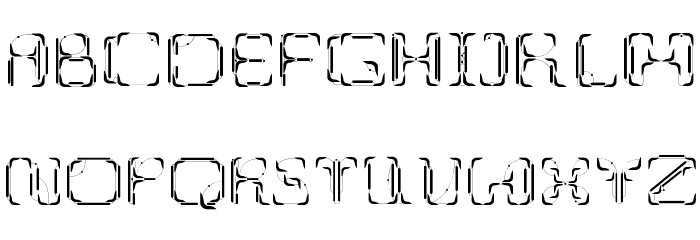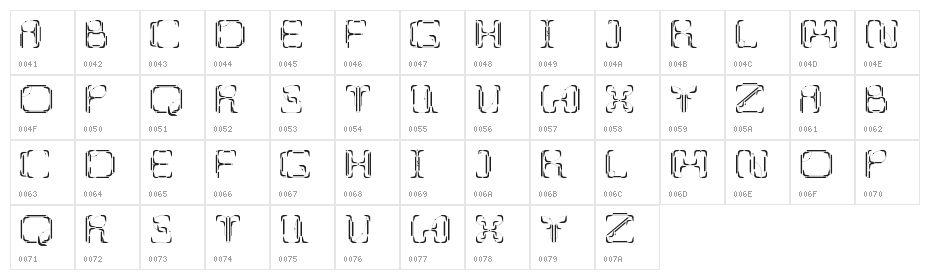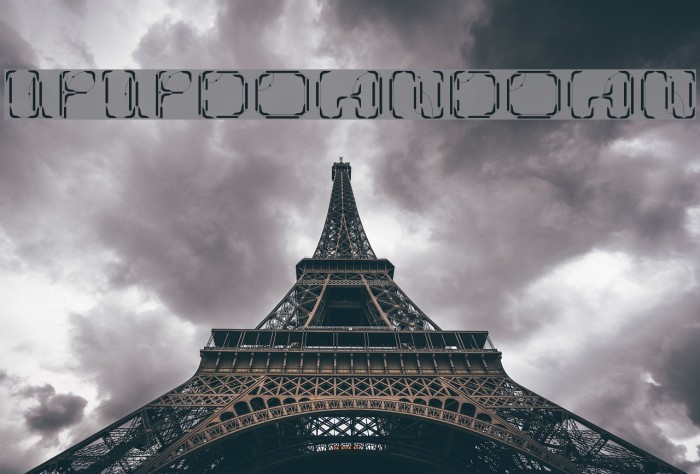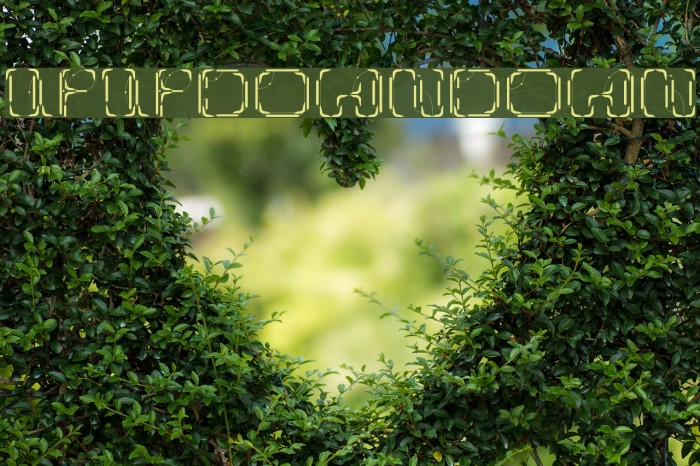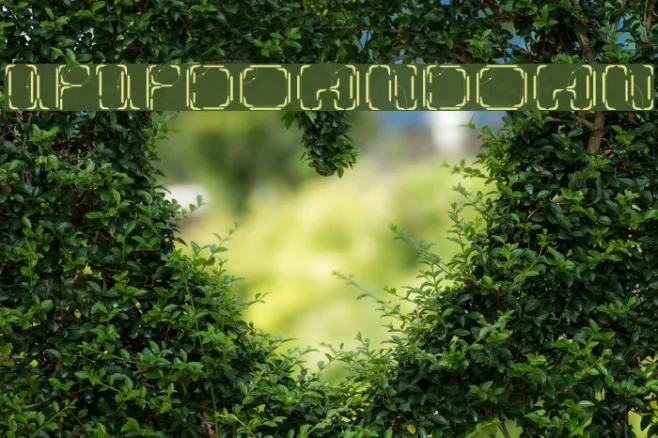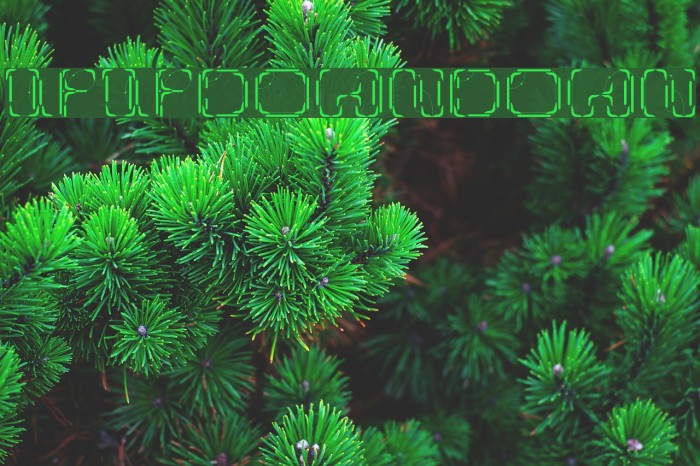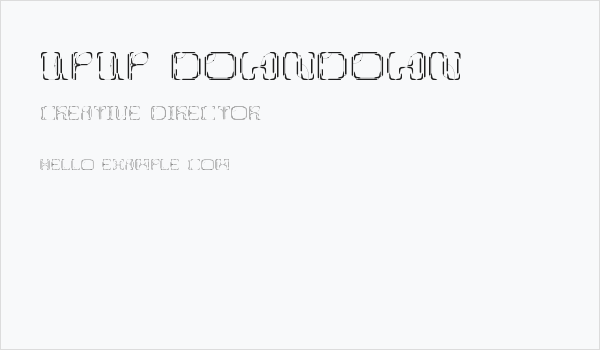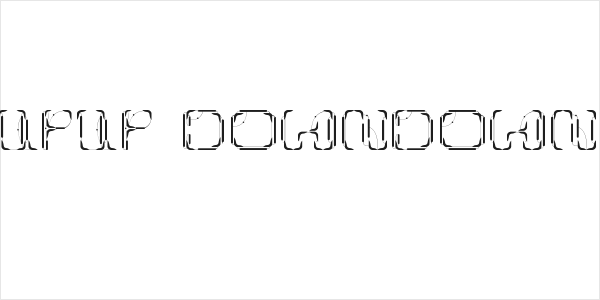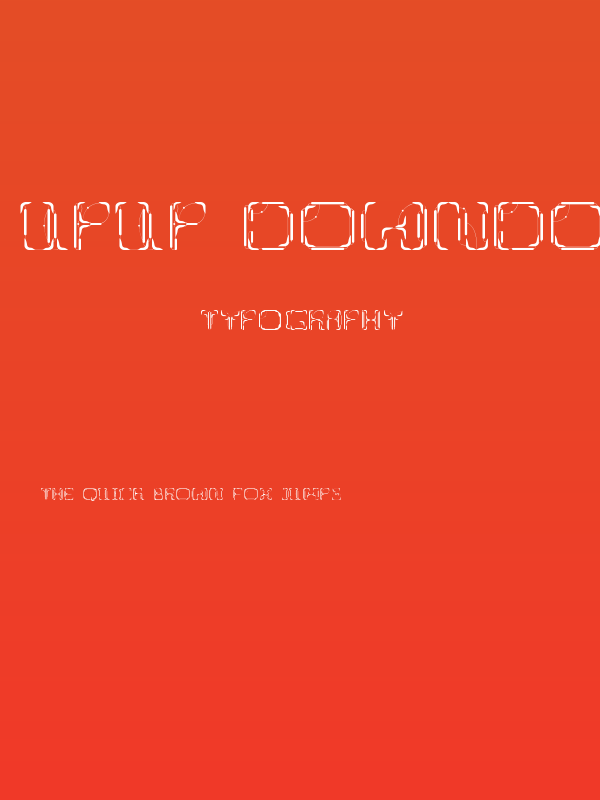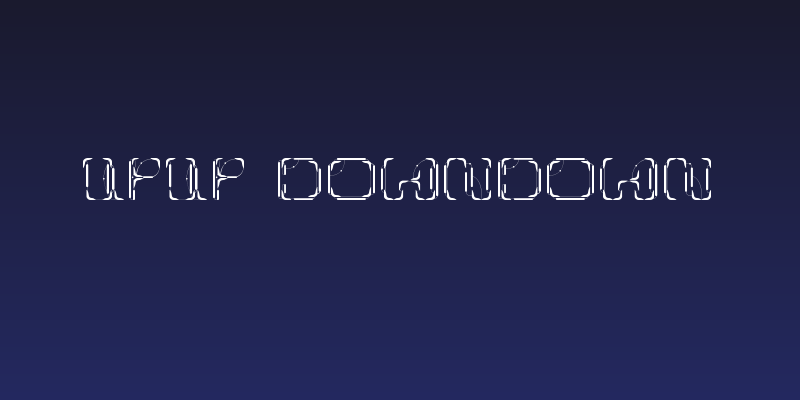
UpUp DownDown Font
UpUp DownDown Description
This font features a unique, futuristic design with a geometric and angular structure. Each character is crafted with a series of sharp, intersecting lines that create a sense of movement and energy. The letters are bold and have a distinct, almost mechanical appearance, making them stand out in any design. The consistent use of angular cuts and edges gives the font a cohesive and modern look. It is ideal for projects that require a strong visual impact and a contemporary feel.
| Proposed Projects | Ideal for technology branding, sci-fi themed posters, video game titles, and modern advertising campaigns. |